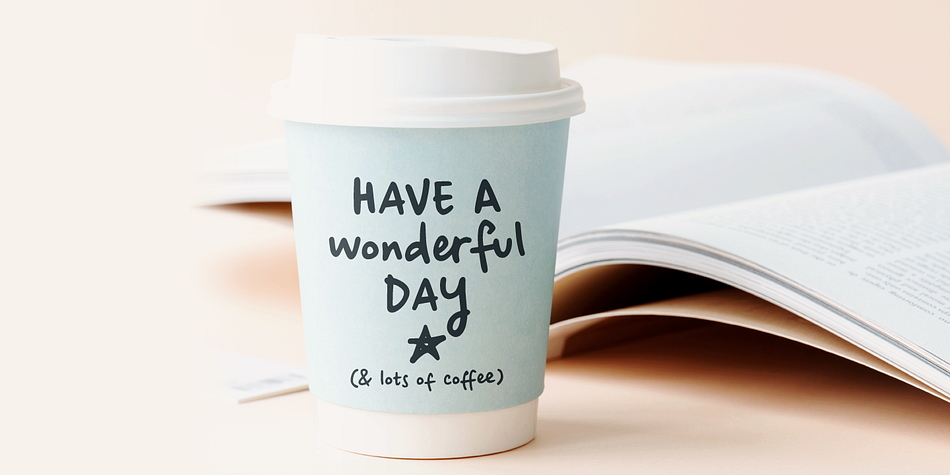
Be Cool
Designed by Ana Parracho, Be Cool is a hand drawn and dingbat font family. This typeface has three styles and was published by Ana's Fonts.
Be Cool is a cute handwritten font with:
- An alternate character set (A-Z, a-z)
- An extra set of swashes and ornaments to help decorate your text
- A-Z, a-z, numbers and punctuation
- Multilingual support
- Dozens of ligatures that give it a true handwritten feel
Use Be Cool in any design that needs a handwritten feel, such as signatures, notes and quotes, logos and branding.